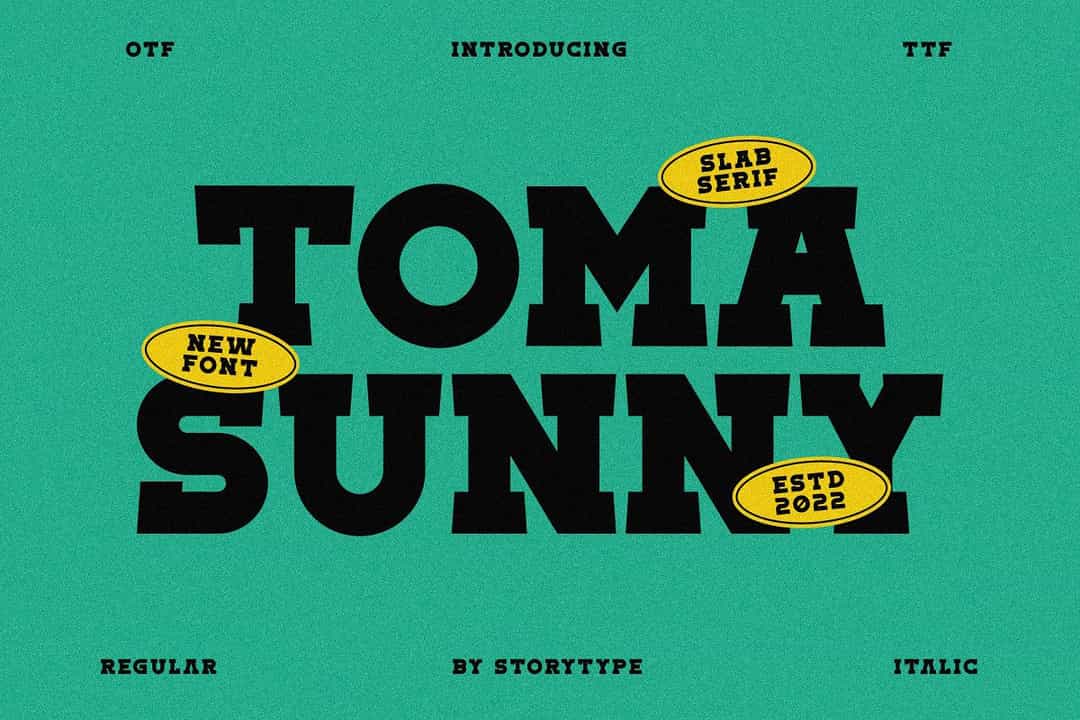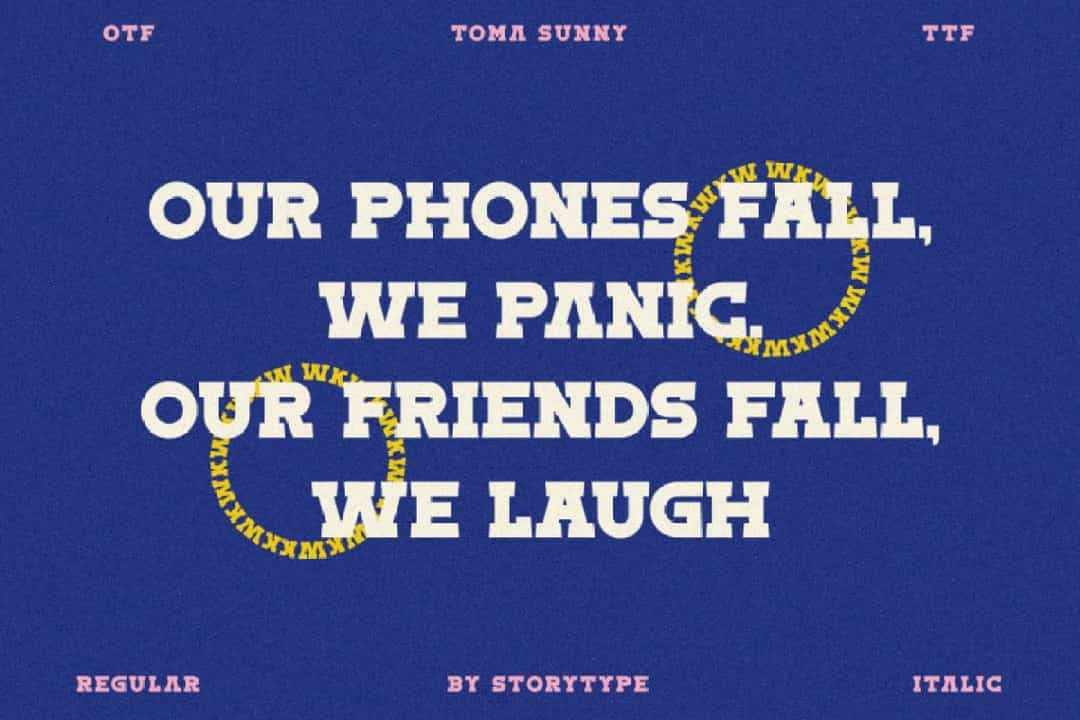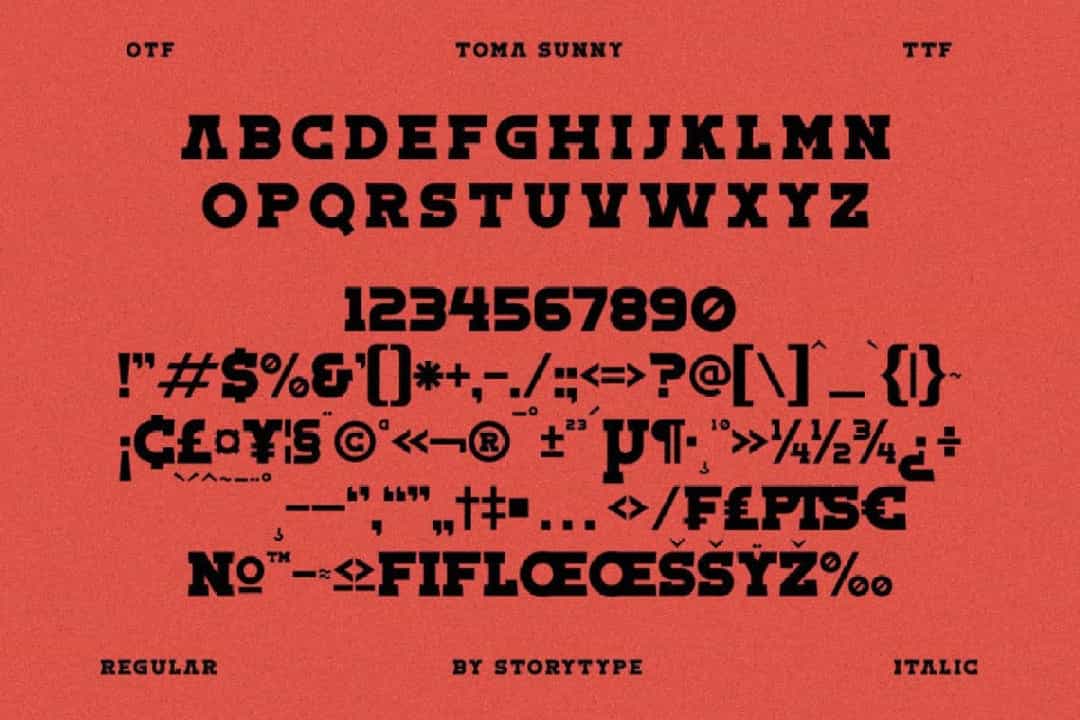
Toma Sunny is an elegant and timeless slab serif typeface with its own distinct character and bold style. Perfect for use when creating classy logos, movie or book titles designs, clothing brand names designs, magazine layouts, quotes and many other purposes, Toma Sunny can help add that extra something special when used to design fashion brand clothing, magazine lettering or even quotes!